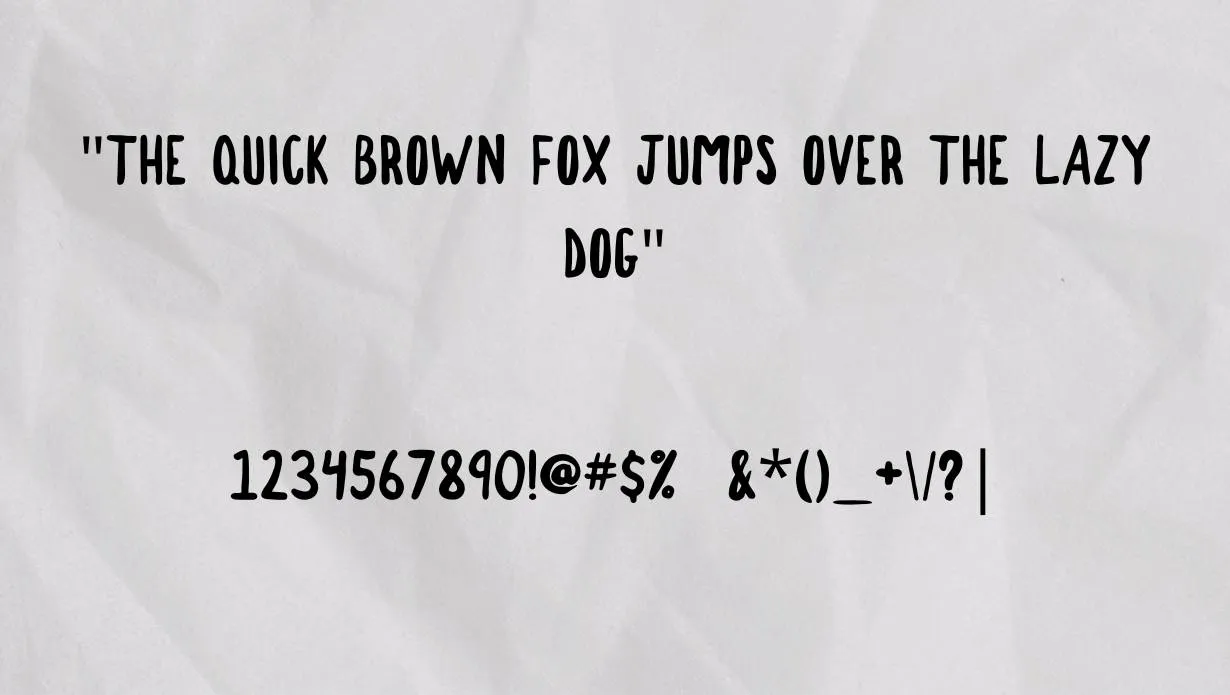
The Westfalia Font adds a touch of adventure and freedom to your designs, perfect for projects related to travel or outdoor exploration. Its rustic characters bring a sense of nature and wanderlust.
| Name | Westfalia Font |
| Designer | Jonathan Hoefler |